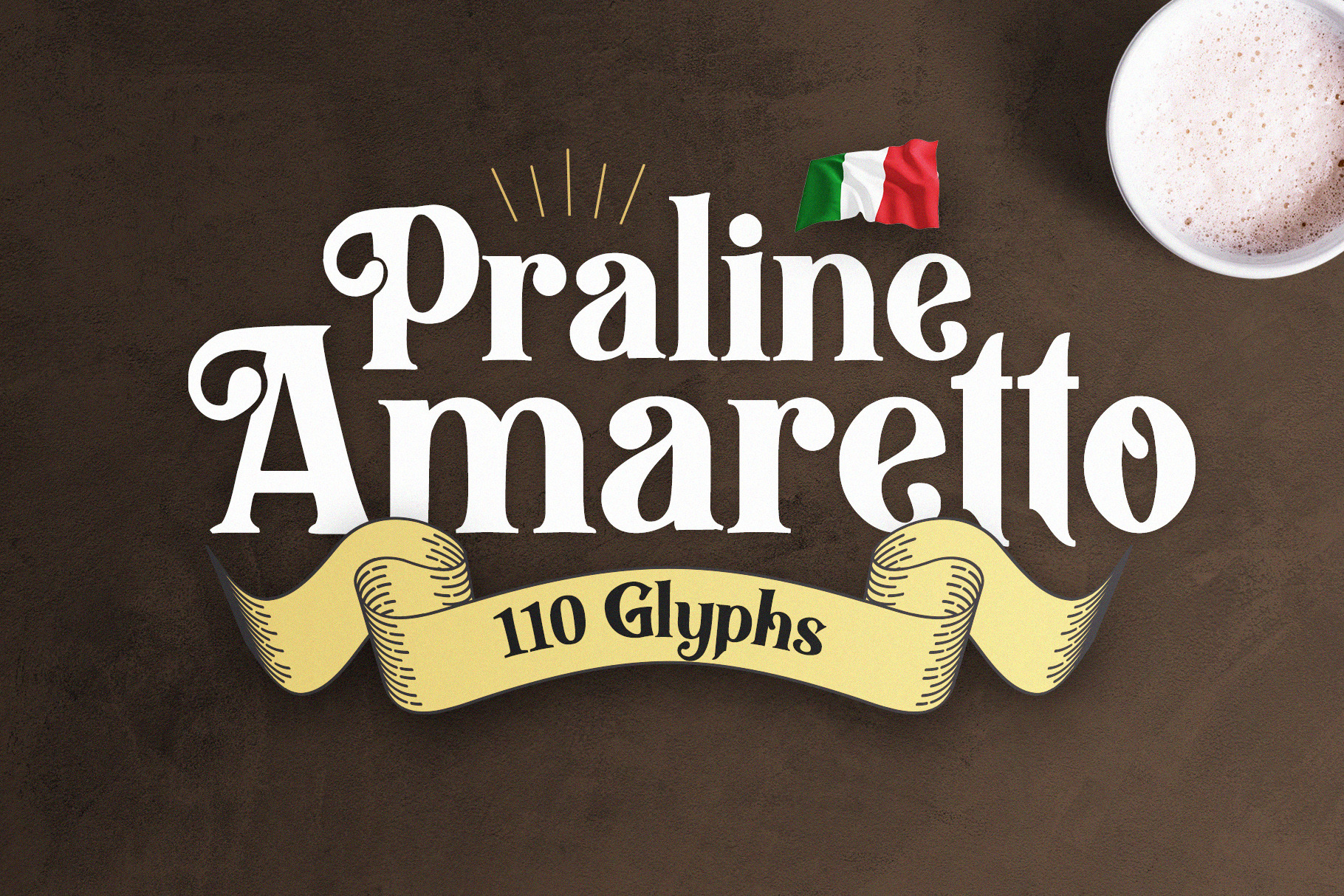
Praline Amaretto - Vintage Font
Praline Amaretto
Introducing Praline Amaretto, our latest and greatest Serif Font, featuring 91 Handcrafted Glyphs, including:
- Uppercase Glyphs
- Lowercase Glyphs
- Numbers & Punctuation (Coming soon, multilingual Glyphs!)